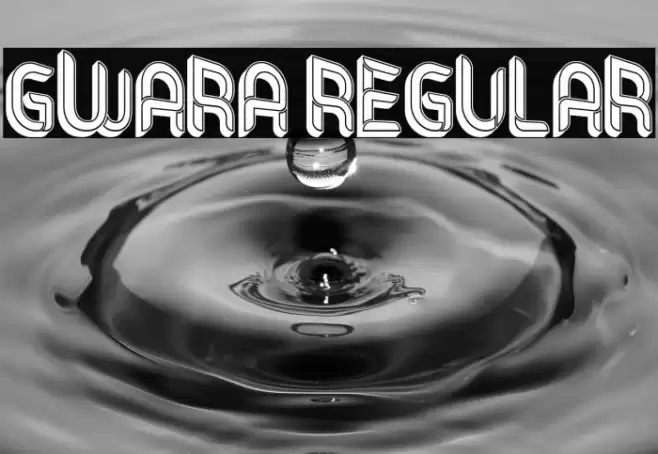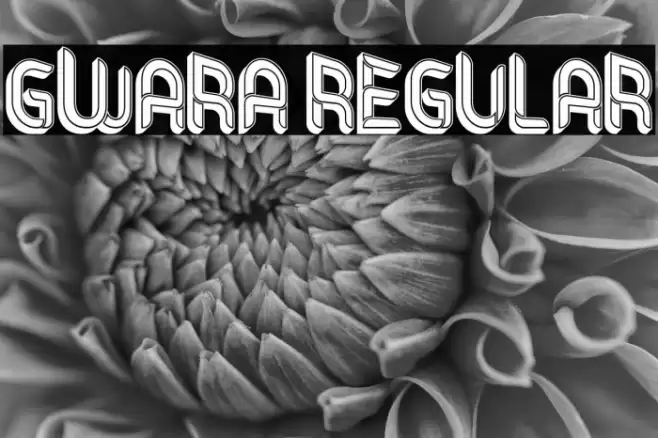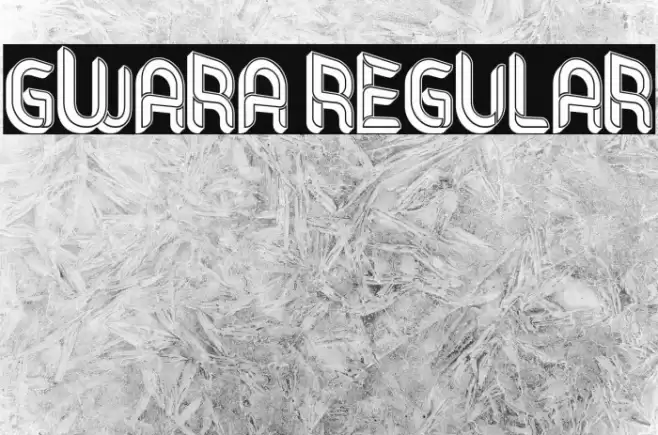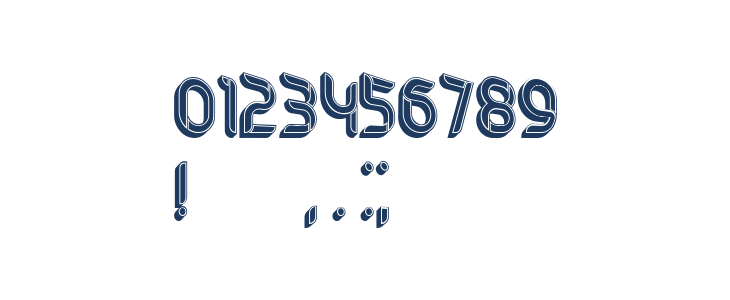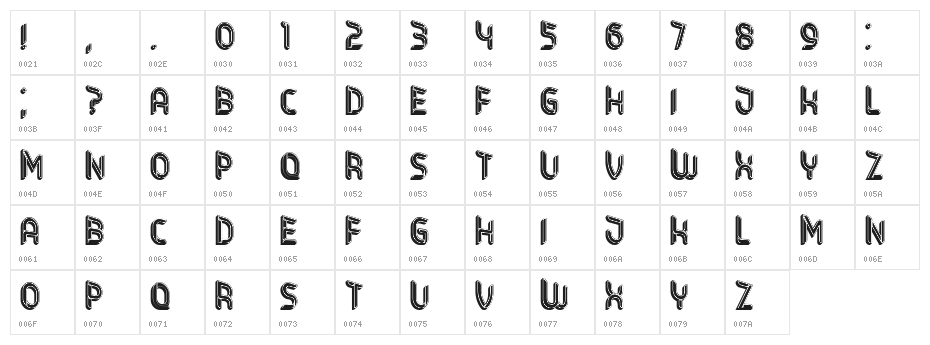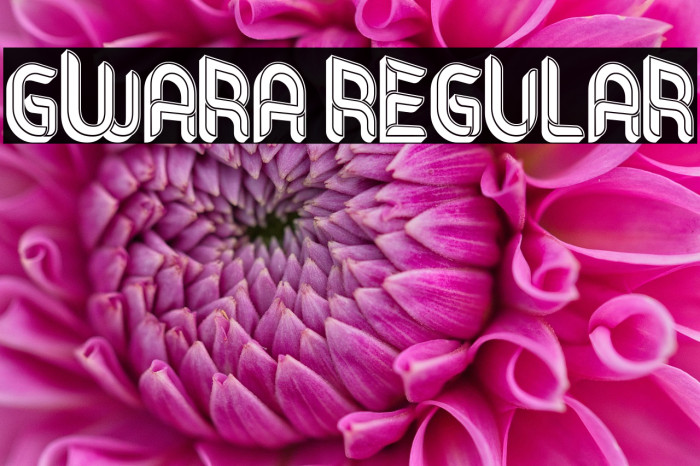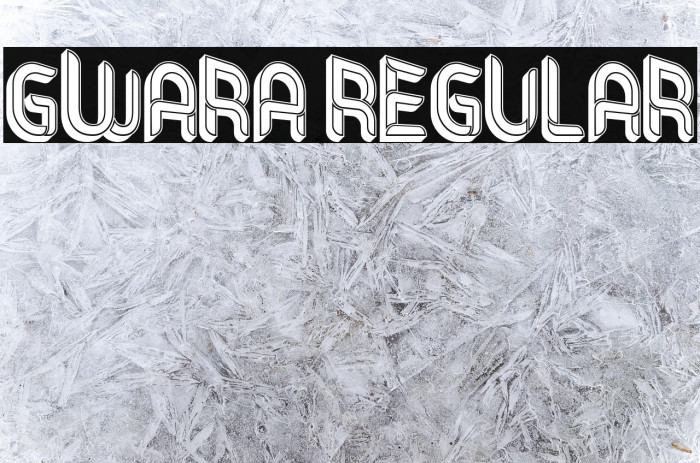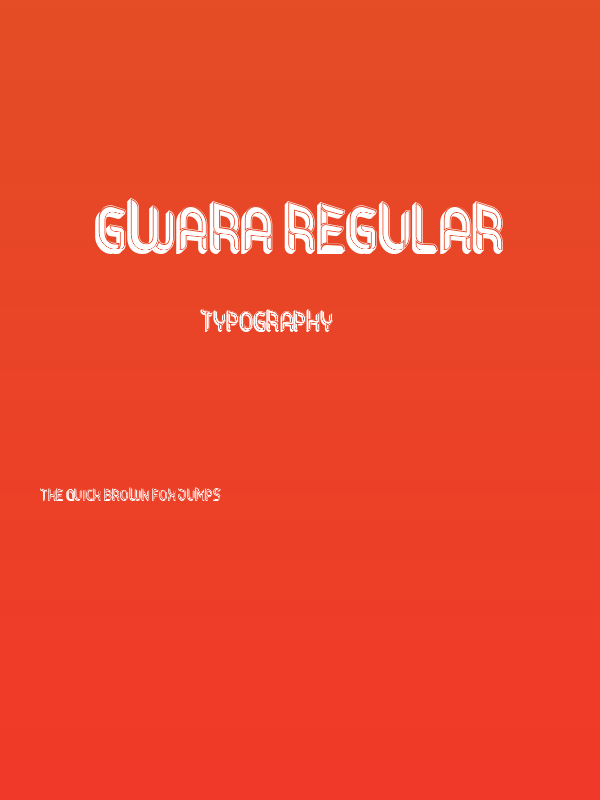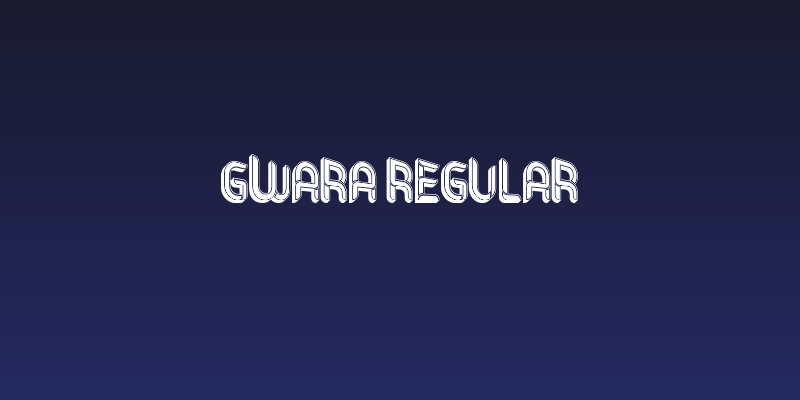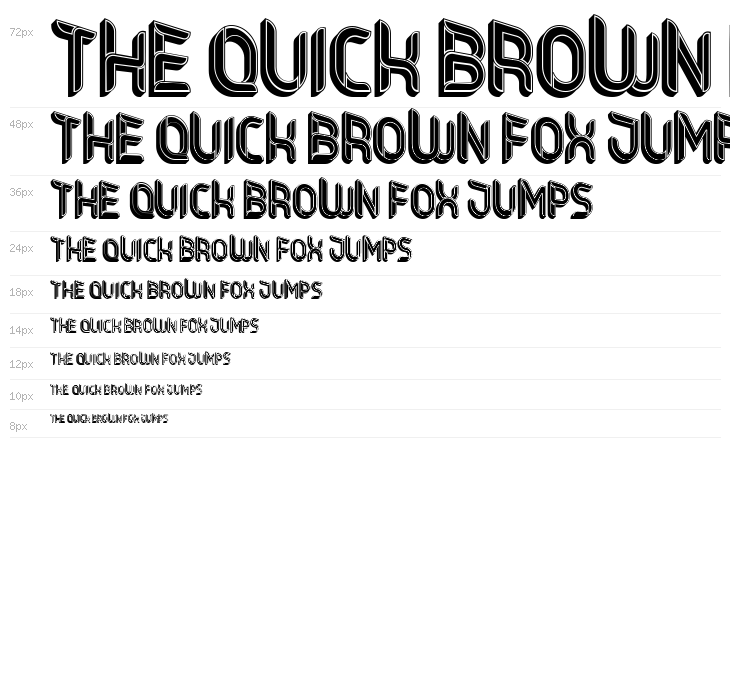
Gwara Regular Font
Gwara Regular Description
This font features a bold, decorative style with a three-dimensional effect created by its shadowed outline. The characters are uppercase and numerals, with a consistent geometric structure that gives a modern and dynamic appearance. The design is striking and attention-grabbing, making it suitable for impactful visual statements. The font's unique style is characterized by its thick strokes and sharp angles, which contribute to its bold presence. The spacing between characters is normal, allowing for clear readability while maintaining its decorative appeal.
A bold, decorative font with a three-dimensional shadow effect from Uncategorized fonts.
- Proposed Projects: Ideal for posters, headlines, branding, and any project requiring a strong visual impact.